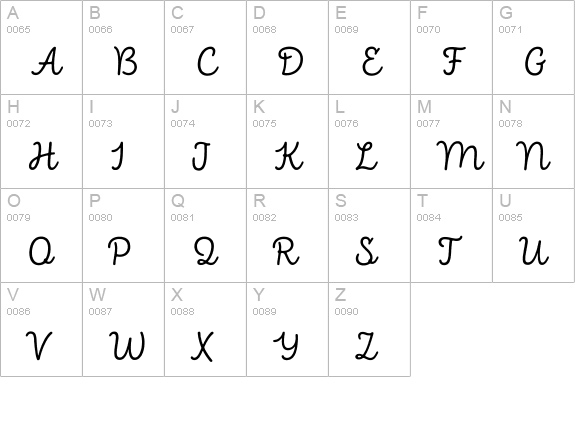
Intro Script R Base Font Details
Intro Script R Base font is a stunning and elegant typeface that exudes sophistication and charm. With its flowing and graceful letterforms, this font is perfect for adding a touch of class to any design project. Whether you're working on invitations, branding materials, or editorial layouts, Intro Script R Base will bring a level of refinement and style to your work. Best of all, Intro Script R Base font is available for free download at FontsMarket.com. This means that you can add this exquisite font to your collection without any cost, making it a valuable resource for designers and creatives alike. Don't miss out on the opportunity to enhance your projects with the timeless beauty of Intro Script R Base font. Download it today and elevate your designs to new heights.